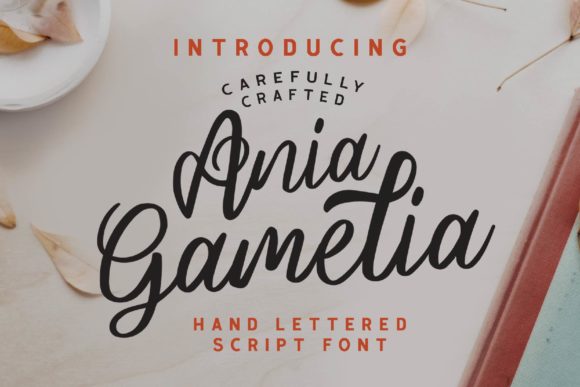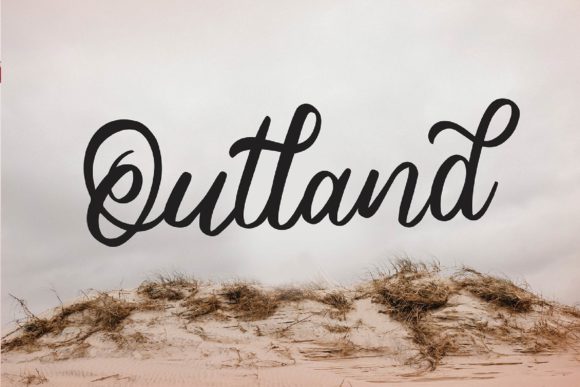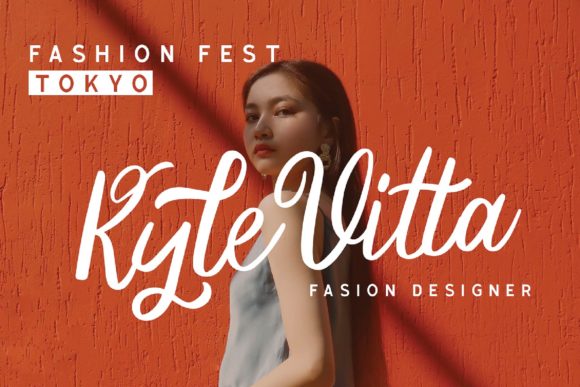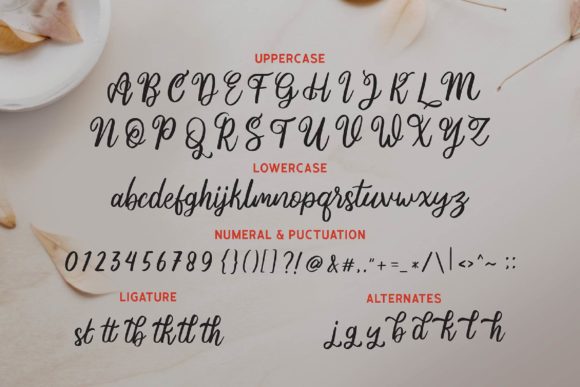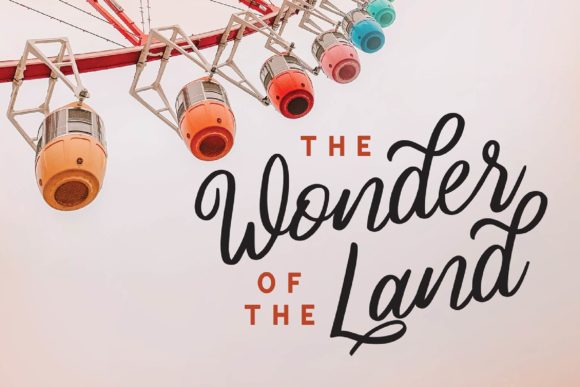
HomeScript FontsAnia Gamelia Font Script Fonts Ania Gamelia Font FacebookXPinterestWhatsApp Ania Gamelia Font Poster 2 Ania Gamelia Font Poster 3 Ania Gamelia Font Poster 4 Ania Gamelia Font Poster 5 About Ania Gamelia Font Ania Gamelia is a fun and sweet handwritten font with a cool twist. Get inspired by its authentic charm! DOWNLOAD ON CREATIVE FABRICAThis font is sold and delivered by Creative Fabrica. Font Canyon may earn a commission if you buy through this link. People also explored Brethesom Font Avocado Creamy Font Cute Grass Garden Font Wedding Adheana Font Duo Claystorm House Halloween Monogram Font Barthley Font Happy Alphabet Font Font 336 0 TagsAnia Gamelia Font Previous articleBella Marwa FontNext articlePlanolla Font LEAVE A REPLY Cancel reply Comment: Please enter your comment! Name:* Please enter your name here Email:* You have entered an incorrect email address! Please enter your email address here Website: Save my name, email, and website in this browser for the next time I comment. Personal Use Free Adelfa Personal Use Free Read more about this font Welcome Creative Personal Use Free Read more about this font Santhony Personal Use Free Read more about this font Predators Personal Use Free Read more about this font BLOG Best Fonts for YouTube Videos: Make Your Thumbnails Stand Out Best Fonts for YouTube Videos: Make Your Thumbnails Stand Out Choosing the right font can make a massive difference in how your YouTube videos perform.... How to Cut Any Font on Cricut: Convert a Font to SVG (Free) Free vs Paid Fonts: Why Investing in Premium Fonts Is Worth It To increase your work productivity, choose the most readable fonts.